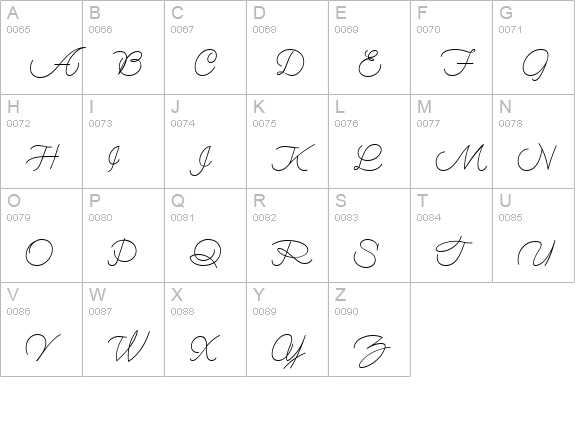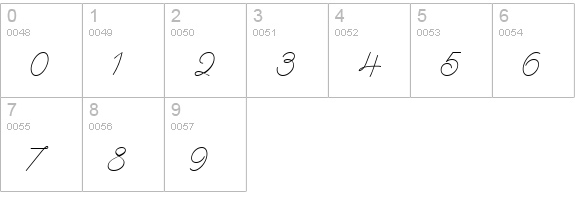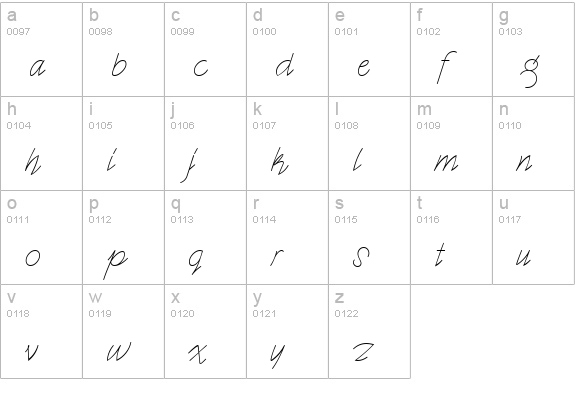
MyDearWatsonNF Medium is a balanced, medium-weight variant in the MyDearWatsonNF typeface family \xE2\x80\x94 well suited to sub-headlines, navigation, and balanced editorial work.
MyDearWatsonNF Medium font is a sophisticated and elegant typeface that exudes a sense of professionalism and charm. With its clean lines and balanced design, this font is perfect for a wide range of projects, from branding to editorial design. The medium weight strikes the ideal balance between readability and style, making it versatile for both display and body text. What sets MyDearWatsonNF Medium font apart is not only its timeless appeal but also the fact that it is available for free download at FontsMarket.com. This means that you can easily access this high-quality font without any cost, making it a valuable addition to your font collection. Don't miss out on the opportunity to elevate your designs with MyDearWatsonNF Medium font today!